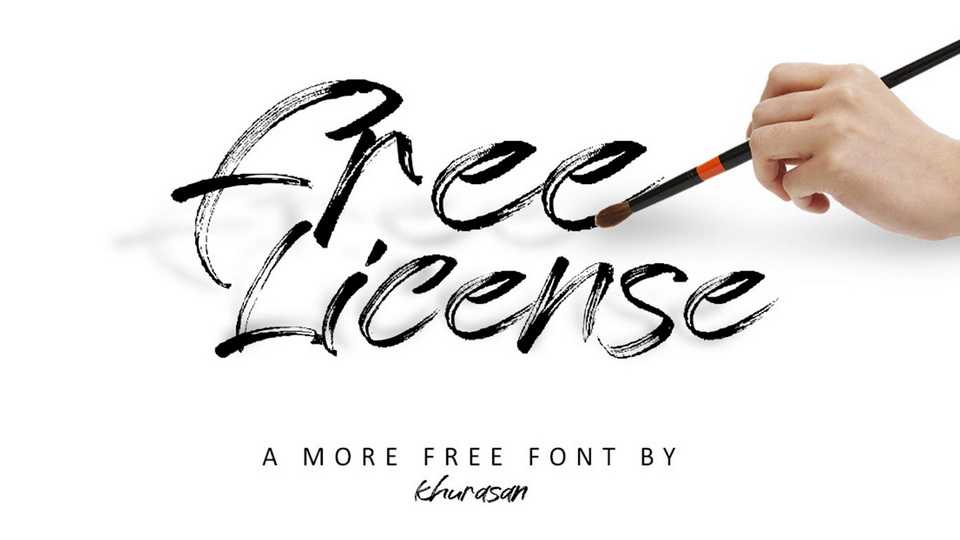
Download Free License font, a energetic hand painted brush typeface with a natural texture and dynamic flow. Free License font is perfect for branding, eye-catching messages, posters, t-shirts, social media and other creative graphics.